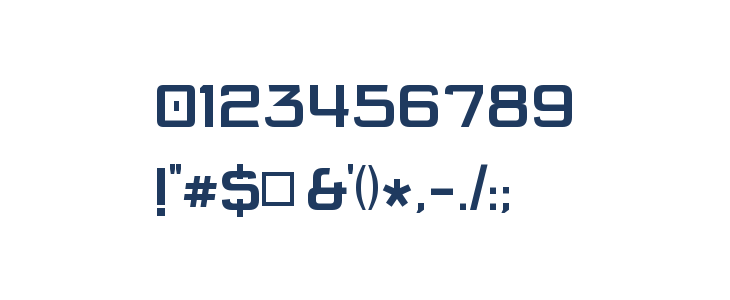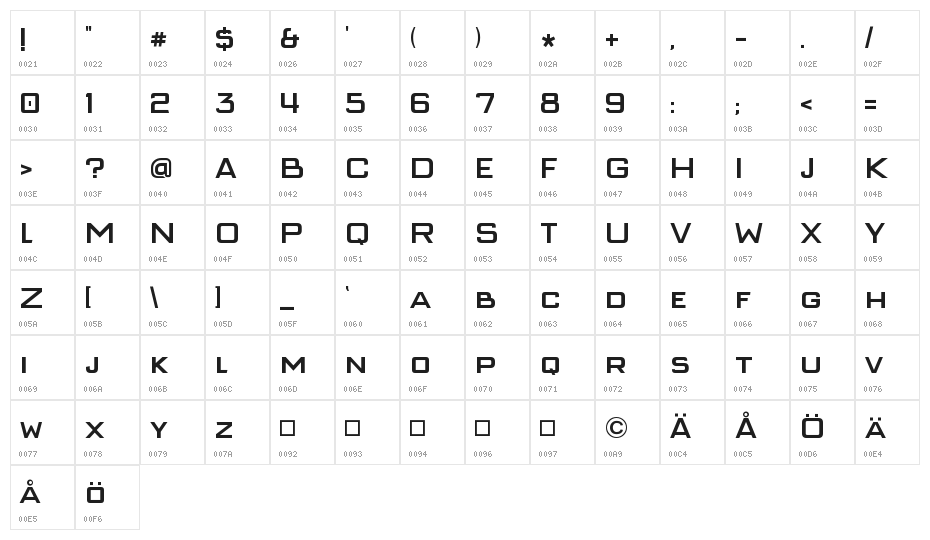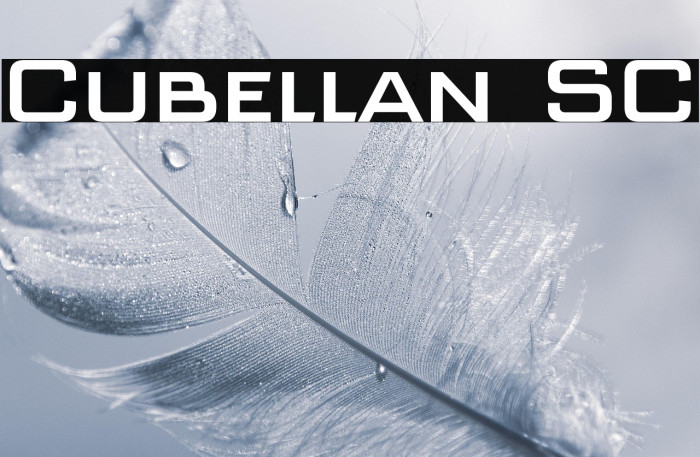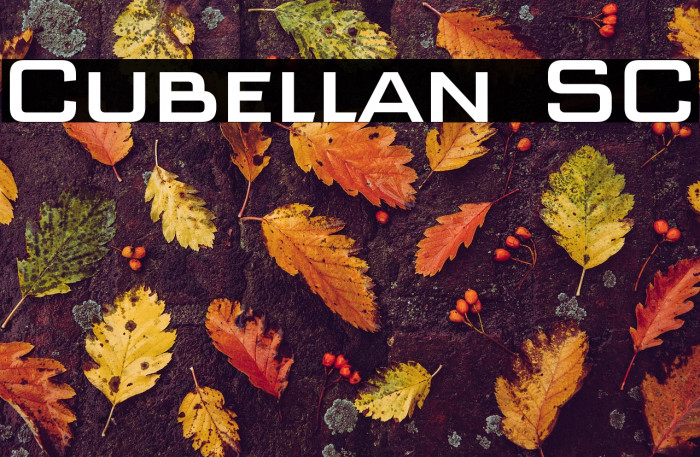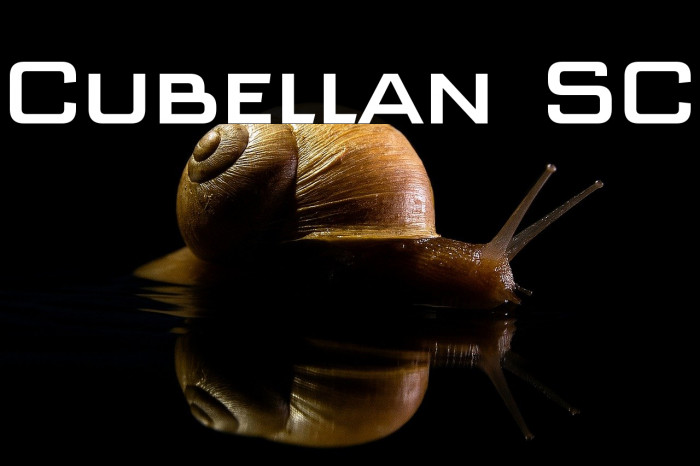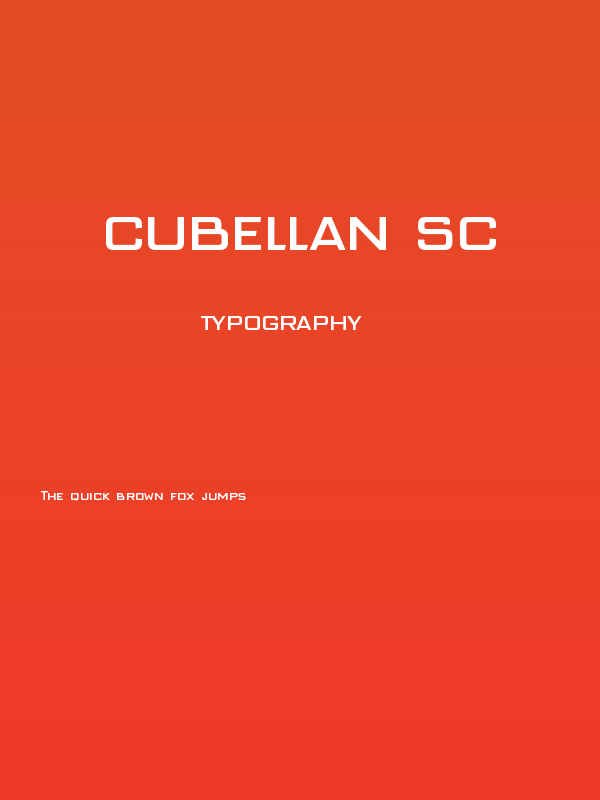
Cubellan SC Font
Cubellan SC Description
This font exhibits a modern and geometric style, characterized by its clean lines and structured forms. The uppercase letters are bold and angular, with a uniform stroke width that gives a sense of stability and strength. The lowercase letters maintain the same geometric precision, offering a cohesive look across different text sizes. The numerals are distinct and easily readable, designed to complement the overall aesthetic. Special characters are crafted with the same attention to detail, ensuring they integrate seamlessly with the alphabetic characters. This font's design is both functional and visually appealing, making it suitable for a variety of applications.
| Use Case | Headlines, Logos, Digital Interfaces |
| Proposed Projects | Ideal for branding, signage, and digital interfaces where clarity and modernity are key. |